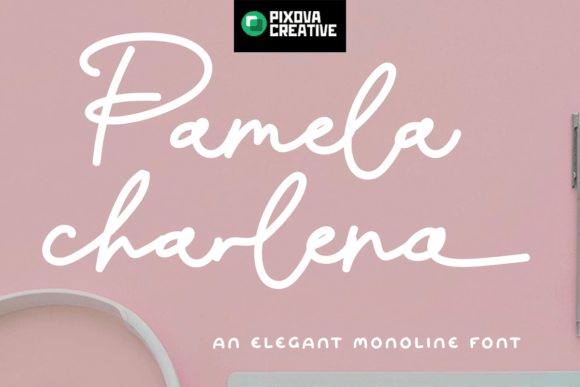
Pamela Charlena Font: A Charming Script Font with a Handcrafted Feel
Pamela Charlena is a beautiful script font that has been gaining popularity among designers and typography enthusiasts. This charming font features elegant, flowing lines that give a personal touch to any text, making it perfect for adding a bit of handmade beauty to your designs. In this article, we’ll explore the unique characteristics of Pamela Charlena Font, its features, and how you can use it to elevate your typography.
What is Pamela Charlena Font?
Pamela Charlena Font is a script font designed with a unique, handcrafted feel. It boasts elegant, flowing lines that give it a personal touch, making it stand out from other fonts. The font’s creator aimed to design a font that would bring a sense of warmth and personality to any text, and they certainly succeeded.
Key Features of Pamela Charlena Font
Pamela Charlena Font comes with several key features that make it an excellent choice for designers and typography enthusiasts. Some of its notable features include:
- Handcrafted feel: Pamela Charlena Font has a unique, handcrafted feel that sets it apart from other fonts. Its elegant, flowing lines give it a personal touch that makes it perfect for adding a bit of handmade beauty to your designs.
- Elegant lines: The font features elegant lines that flow smoothly, making it perfect for use in a variety of design projects, from wedding invitations to branding and packaging.
- Script style: Pamela Charlena Font is a script font, which means it’s perfect for adding a touch of elegance and sophistication to your designs.
- Unique character set: The font comes with a unique character set that includes uppercase and lowercase letters, numbers, and punctuation marks.
How to Use Pamela Charlena Font
Pamela Charlena Font is a versatile font that can be used in a variety of design projects. Here are a few ideas on how to use it:
- Wedding invitations: The font’s elegant lines and handcrafted feel make it perfect for use in wedding invitations, save-the-date cards, and other wedding-related designs.
- Branding and packaging: Pamela Charlena Font can be used to add a touch of elegance and sophistication to branding and packaging designs.
- Signage: The font’s flowing lines make it perfect for use in signage, including store signs, restaurant signs, and more.
- Digital designs: Pamela Charlena Font can be used in digital designs, including social media graphics, website headers, and more.
Benefits of Using Pamela Charlena Font
There are several benefits to using Pamela Charlena Font in your designs. Some of the benefits include:
- Unique look: The font’s handcrafted feel and elegant lines give it a unique look that sets it apart from other fonts.
- Versatility: Pamela Charlena Font can be used in a variety of design projects, from wedding invitations to branding and packaging.
- Elegance: The font’s elegant lines and script style make it perfect for adding a touch of elegance and sophistication to your designs.
- Easy to read: Despite its elegant lines, Pamela Charlena Font is easy to read, making it perfect for use in body text and other long-form content.
Tips for Using Pamela Charlena Font
Here are a few tips for using Pamela Charlena Font in your designs:
- Use it sparingly: While Pamela Charlena Font is beautiful, it can be overwhelming if used too much. Use it sparingly to add a touch of elegance and sophistication to your designs.
- Pair it with a sans-serif font: Pairing Pamela Charlena Font with a sans-serif font can create a beautiful contrast that makes your designs stand out.
- Experiment with colors: The font’s elegant lines look beautiful in a variety of colors. Experiment with different colors to find the one that works best for your design.
- Pay attention to kerning: As with any font, pay attention to kerning to ensure that your text looks professional and polished.
Pamela Charlena Font is a charming script font with a unique, handcrafted feel. Its elegant, flowing lines give it a personal touch that makes it perfect for adding a bit of handmade beauty to your designs. With its versatility, elegance, and ease of use, Pamela Charlena Font is an excellent choice for designers and typography enthusiasts. Whether you’re designing wedding invitations, branding and packaging, or digital designs, Pamela Charlena Font is sure to make your designs stand out.
- What is Pamela Charlena Font?: Pamela Charlena Font is a script font designed with a unique, handcrafted feel.
- What are the key features of Pamela Charlena Font?: The font features elegant lines, a handcrafted feel, and a script style.
- How can I use Pamela Charlena Font?: Pamela Charlena Font can be used in a variety of design projects, including wedding invitations, branding and packaging, signage, and digital designs.
- What are the benefits of using Pamela Charlena Font?: The font’s unique look, versatility, elegance, and ease of use make it an excellent choice for designers and typography enthusiasts.